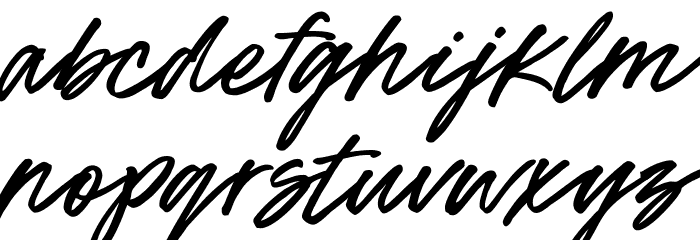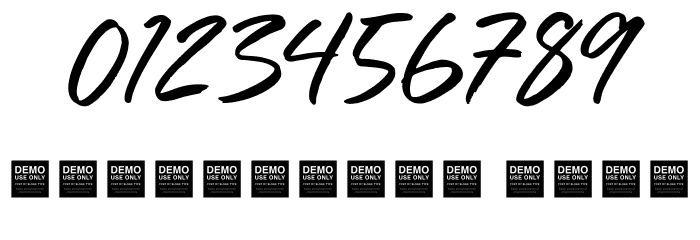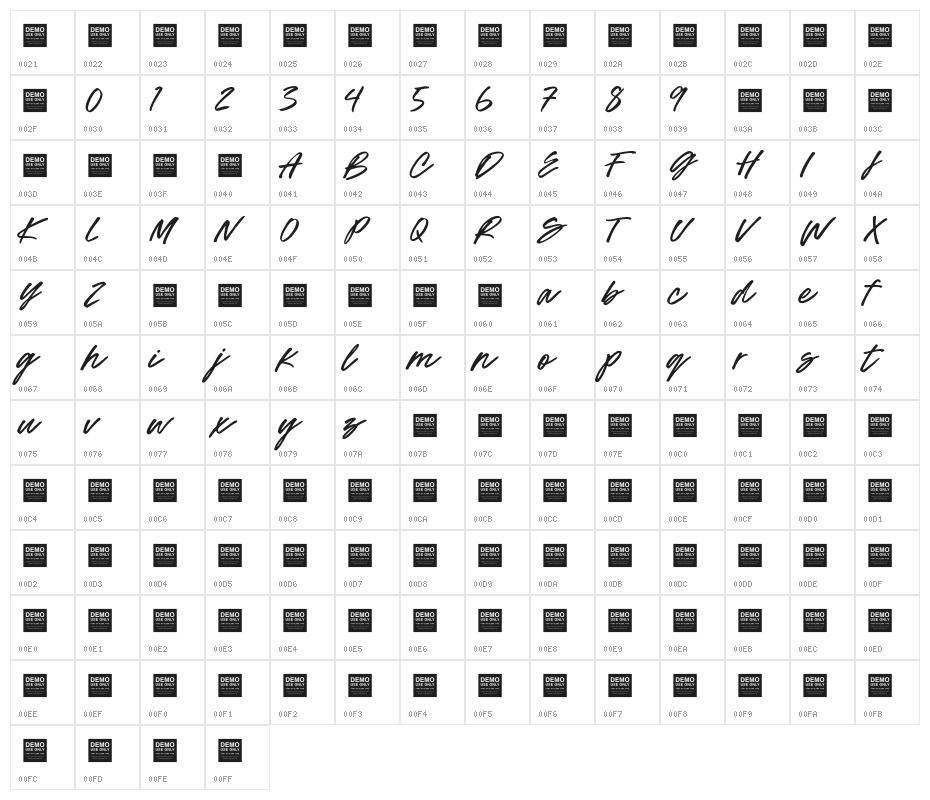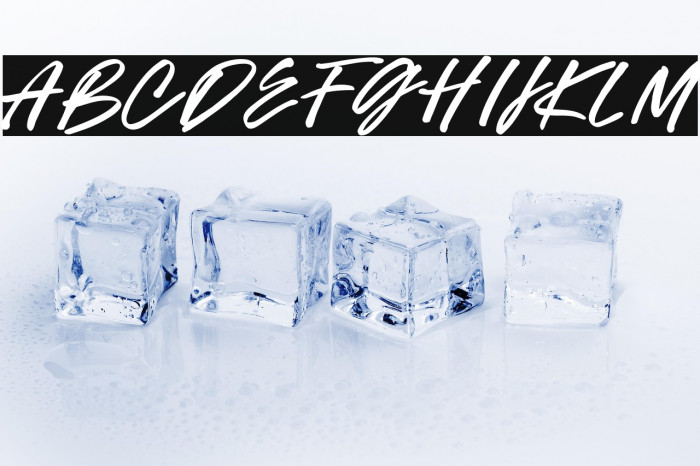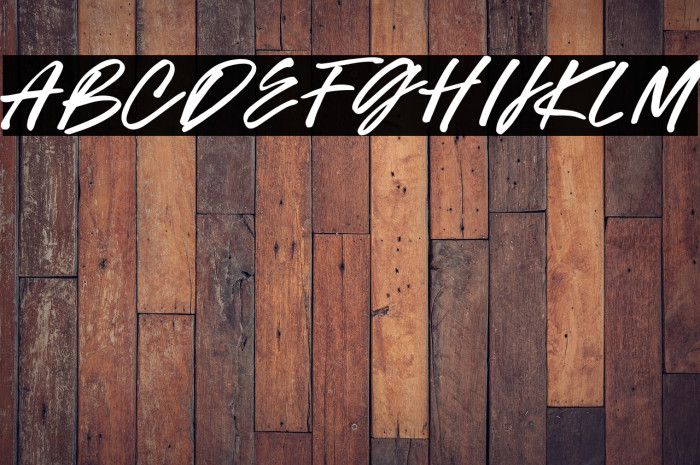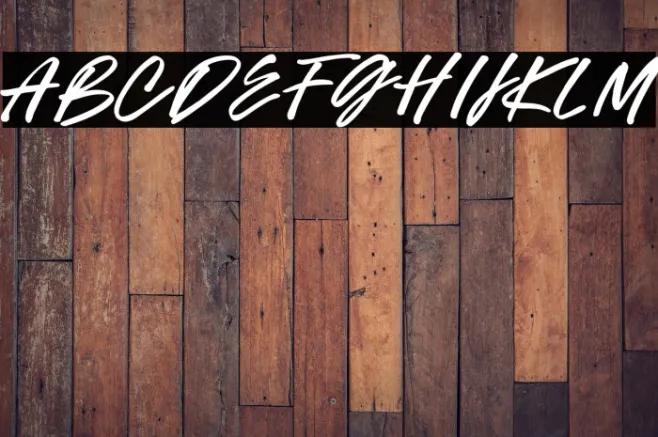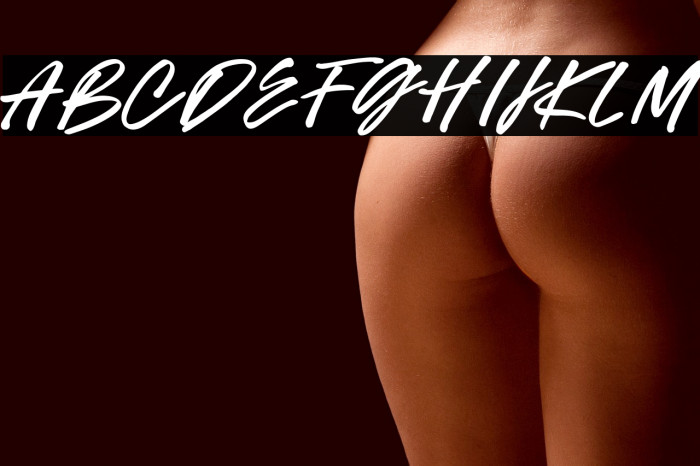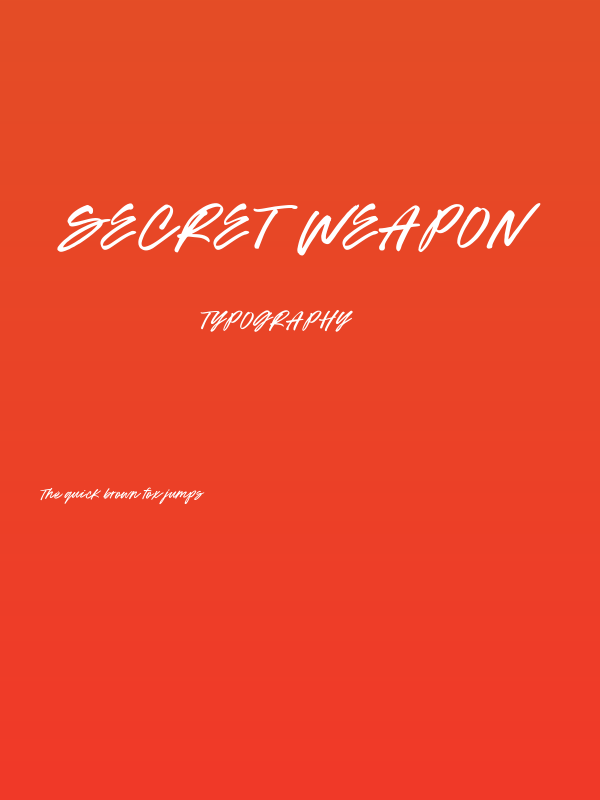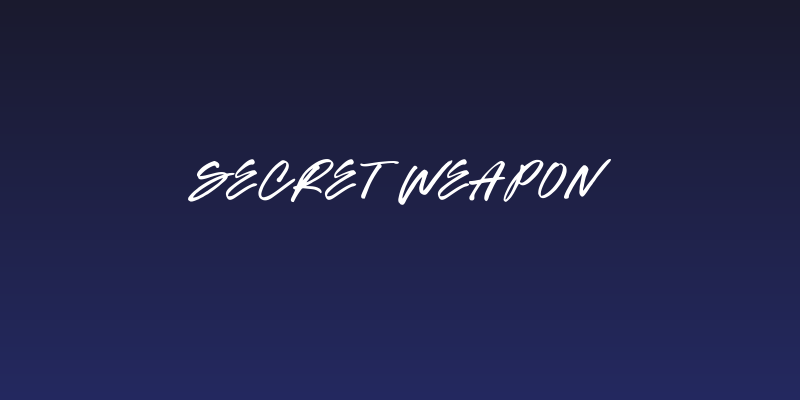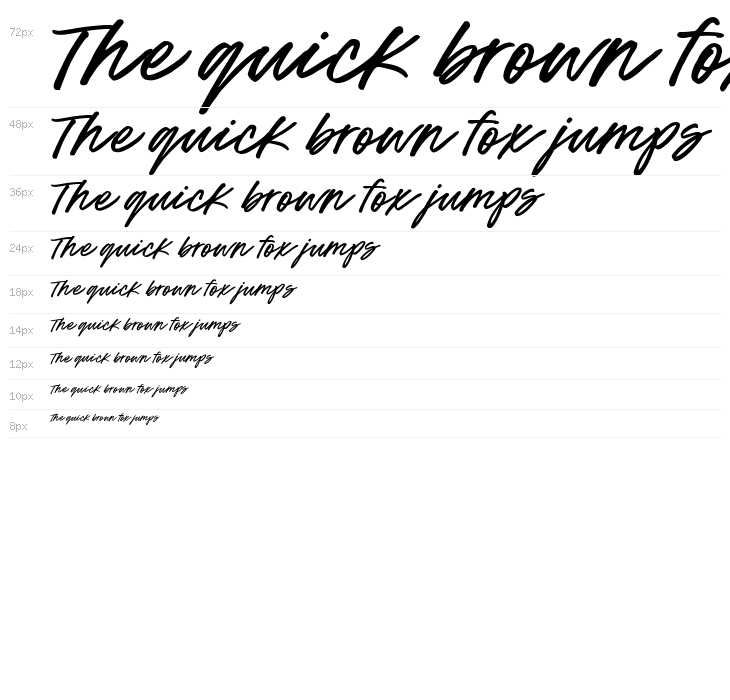
Secret Weapon Font
This font features a dynamic and fluid script style, characterized by its bold and expressive strokes. The letters are connected in a cursive manner, giving it a handwritten appearance that is both elegant and casual. The uppercase letters are slightly larger and more pronounced, while the lowercase letters maintain a consistent flow, enhancing readability. The numerals are styled to match the cursive theme, ensuring a cohesive look across all characters. This font exudes a sense of creativity and personal touch, making it ideal for projects that require a humanistic and artistic flair.
A bold, cursive script font with a fluid, handwritten style.
- Font: Secret Weapon
- Proposed Projects: Ideal for wedding invitations, greeting cards, personal branding, and artistic projects.
- Category: Script
- Character Spacing: Tight
- Use Case: Logos, Headlines, Artistic projects